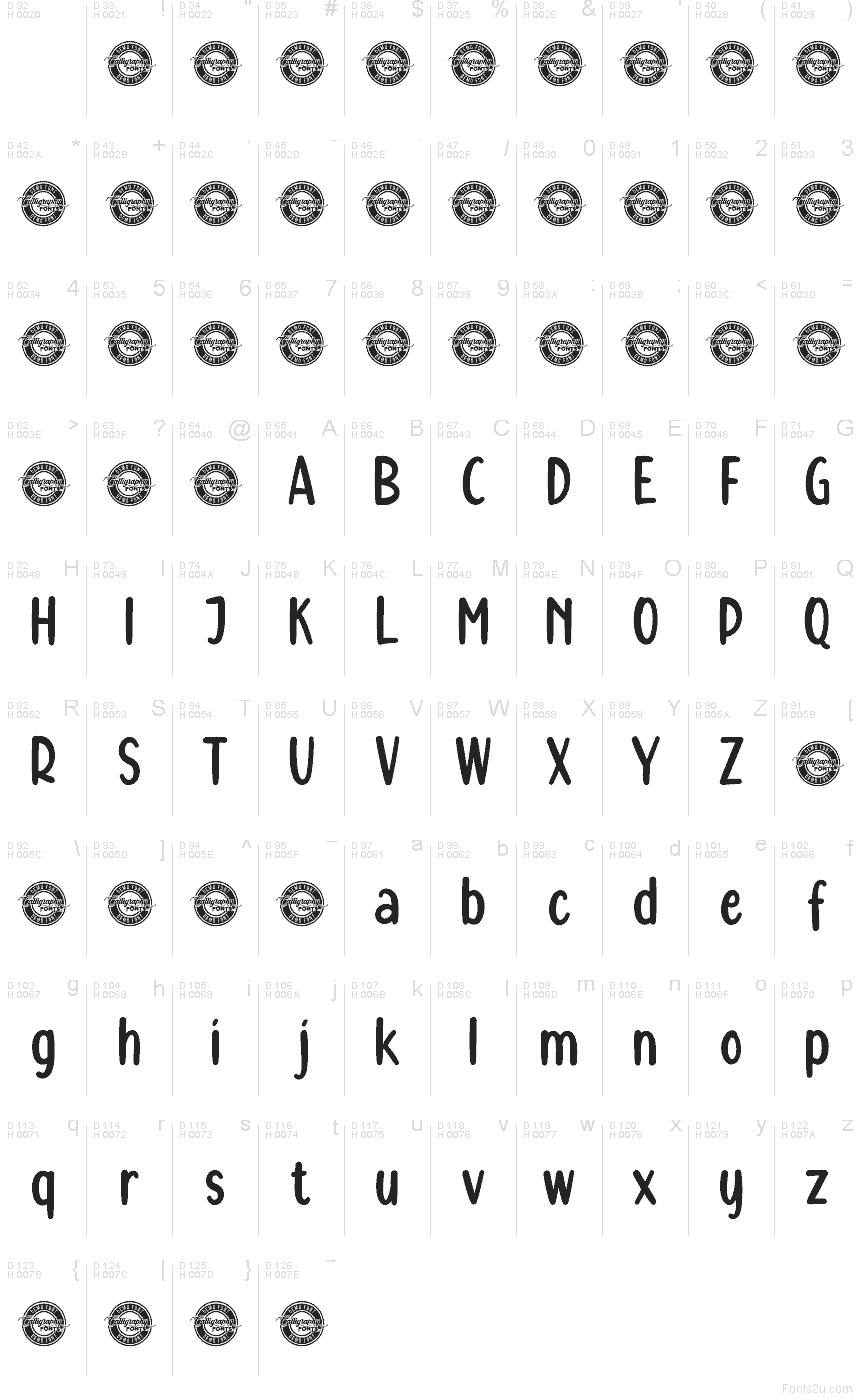
Our Journey from CalligraphyFonts.net is a free handwritten display font with tall, loosely drawn letters and an easygoing silhouette. Its changing stroke widths, open curves, and slightly uneven shapes resemble quick marker lettering rather than careful penmanship.
It turns cafe logos into friendly, hand-lettered labels. Food packaging gains a homemade note from the relaxed shapes, which also suit travel journals and children's posters. For small brands and informal events, the lettering can become part of a warm, personal, recognizable identity.